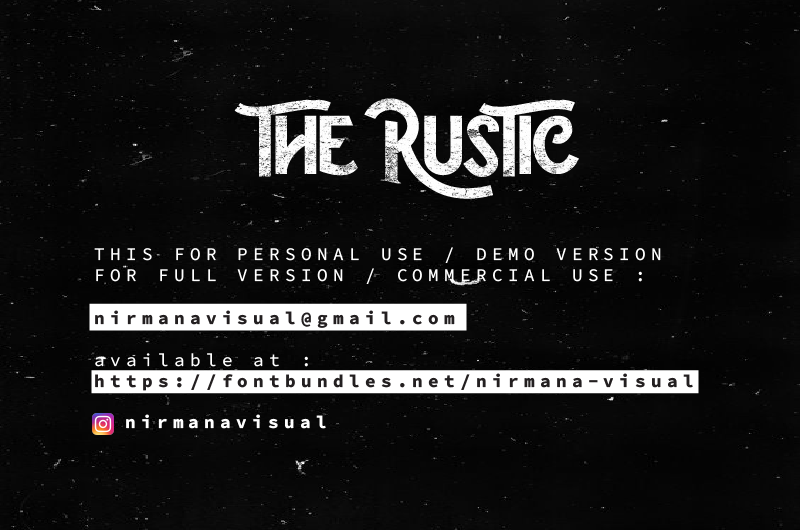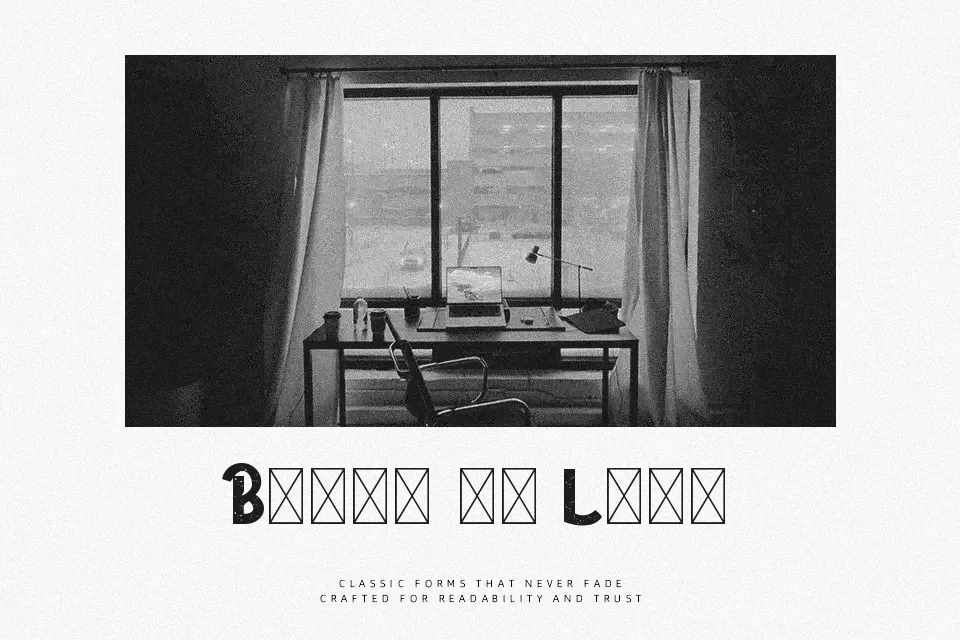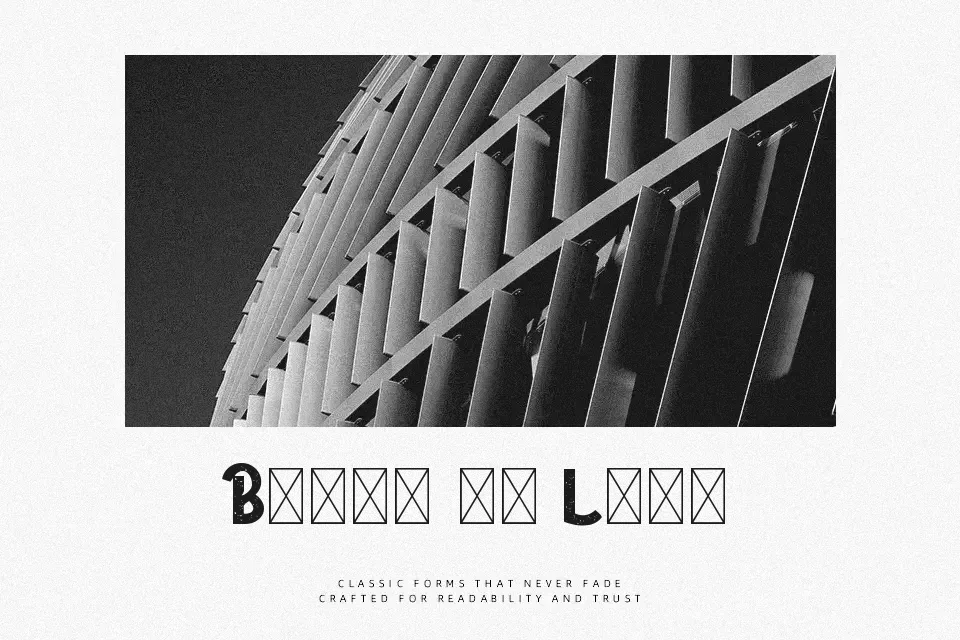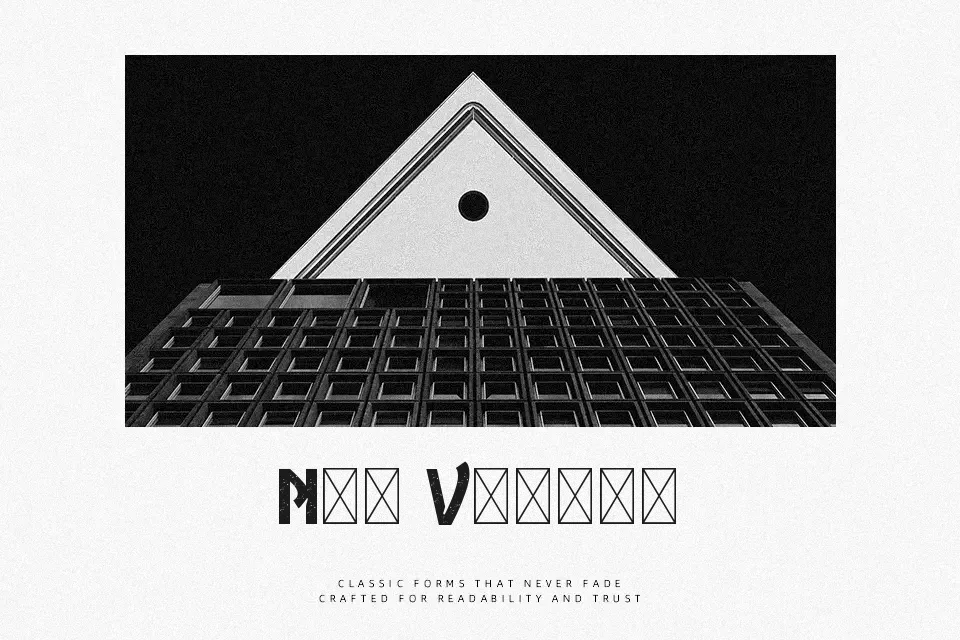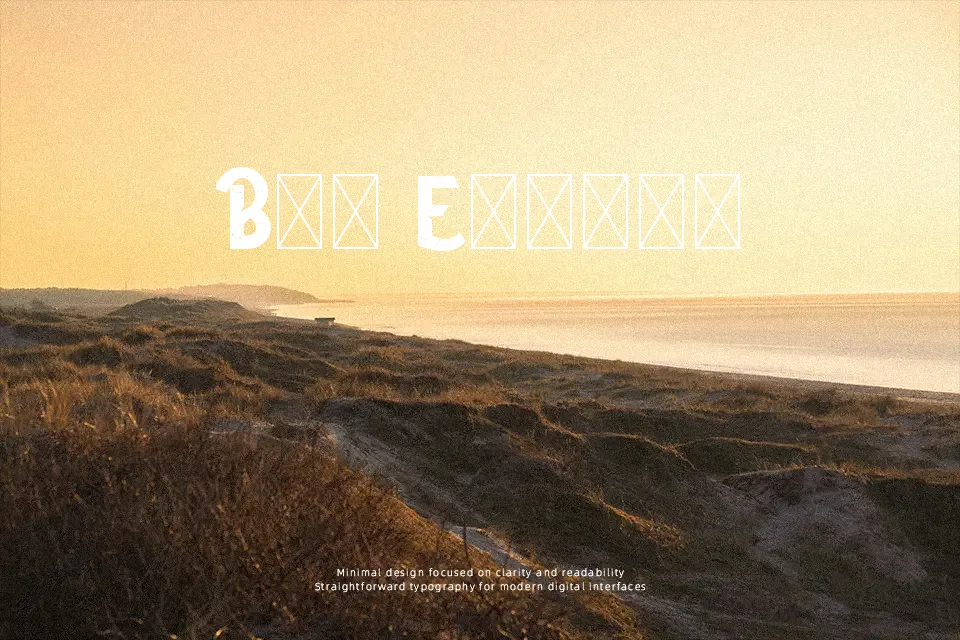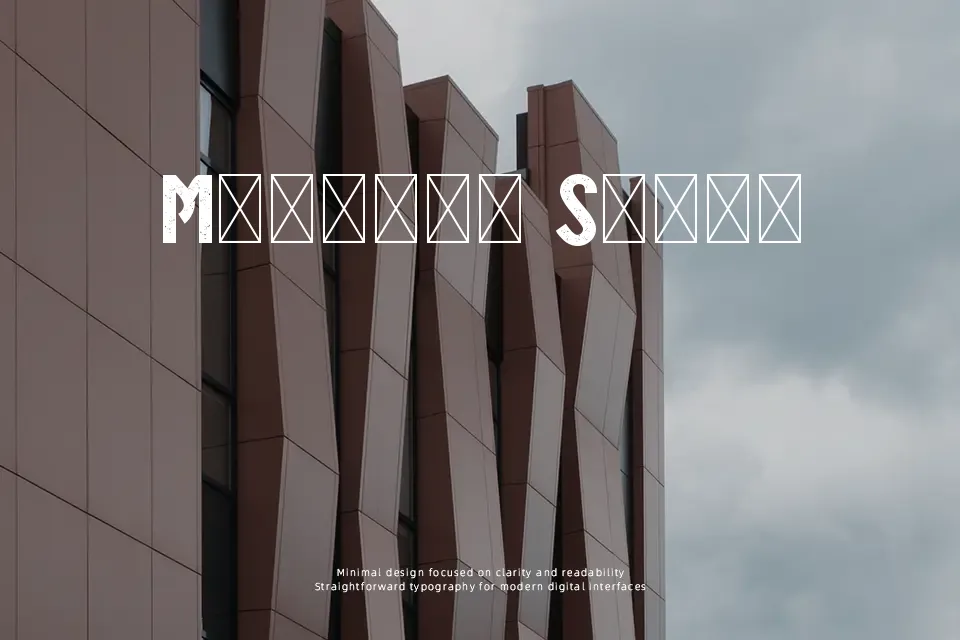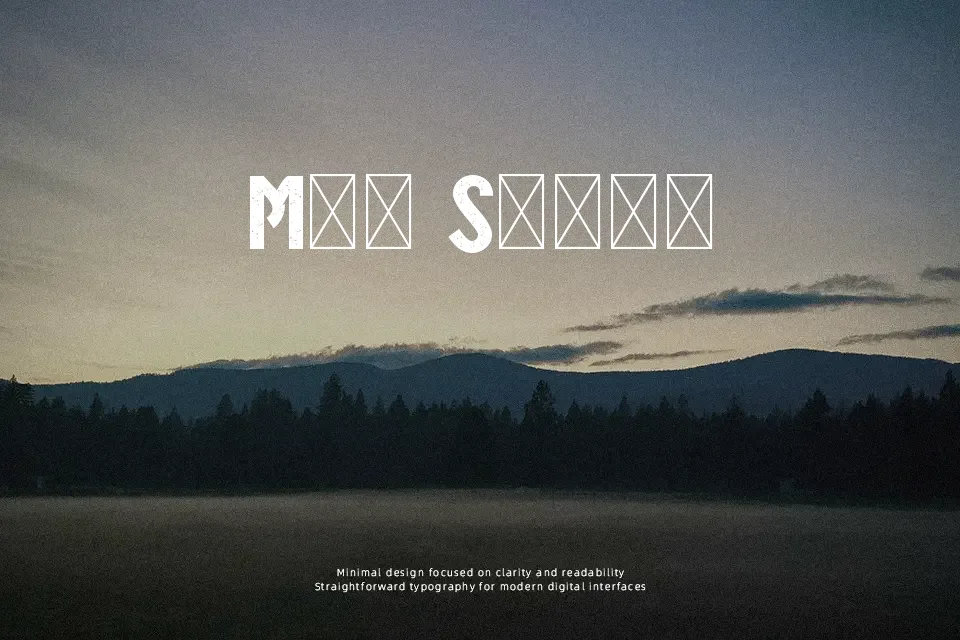
The Rustic Font
Designed by Nirmana Visual
The Rustic Font features solid structural weight paired with flared serifs and deliberate vintage proportions. The letterforms display consistent heavy strokes, moderate contrast, and balanced spacing tailored for prominent titular arrangements. At large display scales, the typeface maintains crisp character distinction and commands attention on merchandise, posters, and craft food containers. However, the compact letter spacing and dense structural mass impair legibility when set in extended body passages or diminished caption sizes. This design performs most reliably as a focal headline element, where its sturdy aesthetic imparts tactile warmth without compromising typographic clarity.
Best For: vintage product packaging, craft beer labels, apparel graphics, storefront signage
Not Ideal For: extended paragraph text, mobile interface captions, technical manuals, dense editorial columns